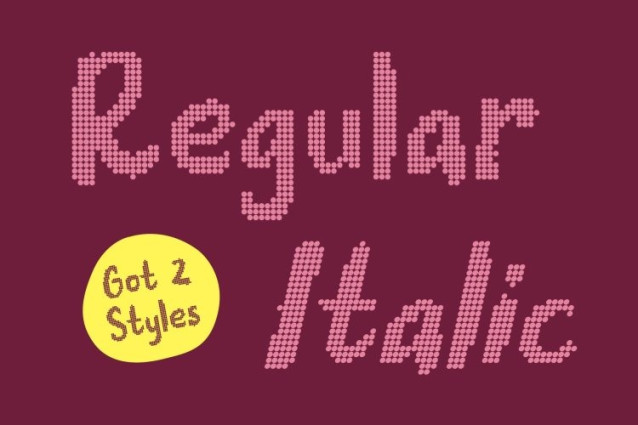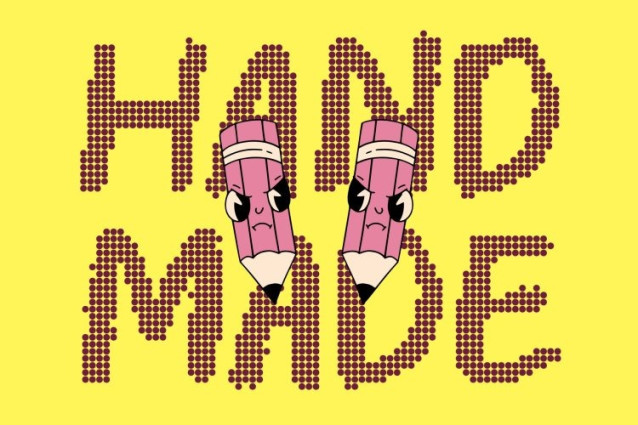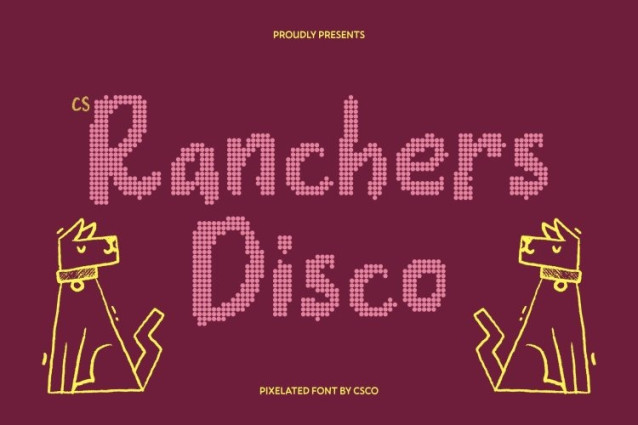
CS Ranchers Disco Font
CS Ranchers Disco Font – This is a bold brush display font that captures the dynamic beauty of natural hand-brushed lettering, enhanced with a lively disco-inspired dotted texture. Its expressive strokes and textured edges convey artistic movement, while the sparkling dot pattern introduces rhythm and visual excitement. This fusion creates typography that feels both handcrafted and vibrant.
Natural Hand-Brushed Texture with Luminous Detail
The authentic brush texture gives each character a genuine painted look, as if created with a real brush. Paired with the disco-style dotted effect, the letters gain an additional decorative layer that adds depth and playful brilliance without losing their organic charm.
Expressive Forms for Creative Impact
The energetic brush strokes give the font a strong sense of motion and personality. Its bold, flowing shapes make it ideal for expressive headlines and standout titles, while the dotted sparkle enhances the visual impact, helping designs feel lively and engaging.
Perfect for Artistic and Creative Projects
This font shines in illustrations, digital artwork, posters, creative branding, and hand-lettered style graphics. Whether used for stylized social media visuals, artistic posters, or expressive logo designs, it brings vibrant character and handcrafted authenticity to every composition.